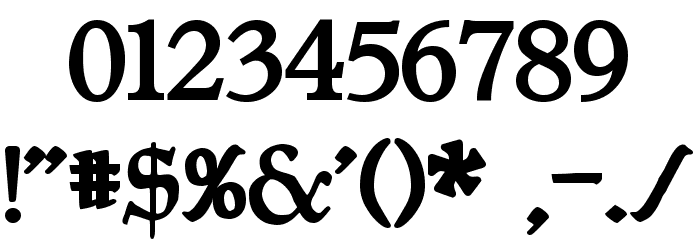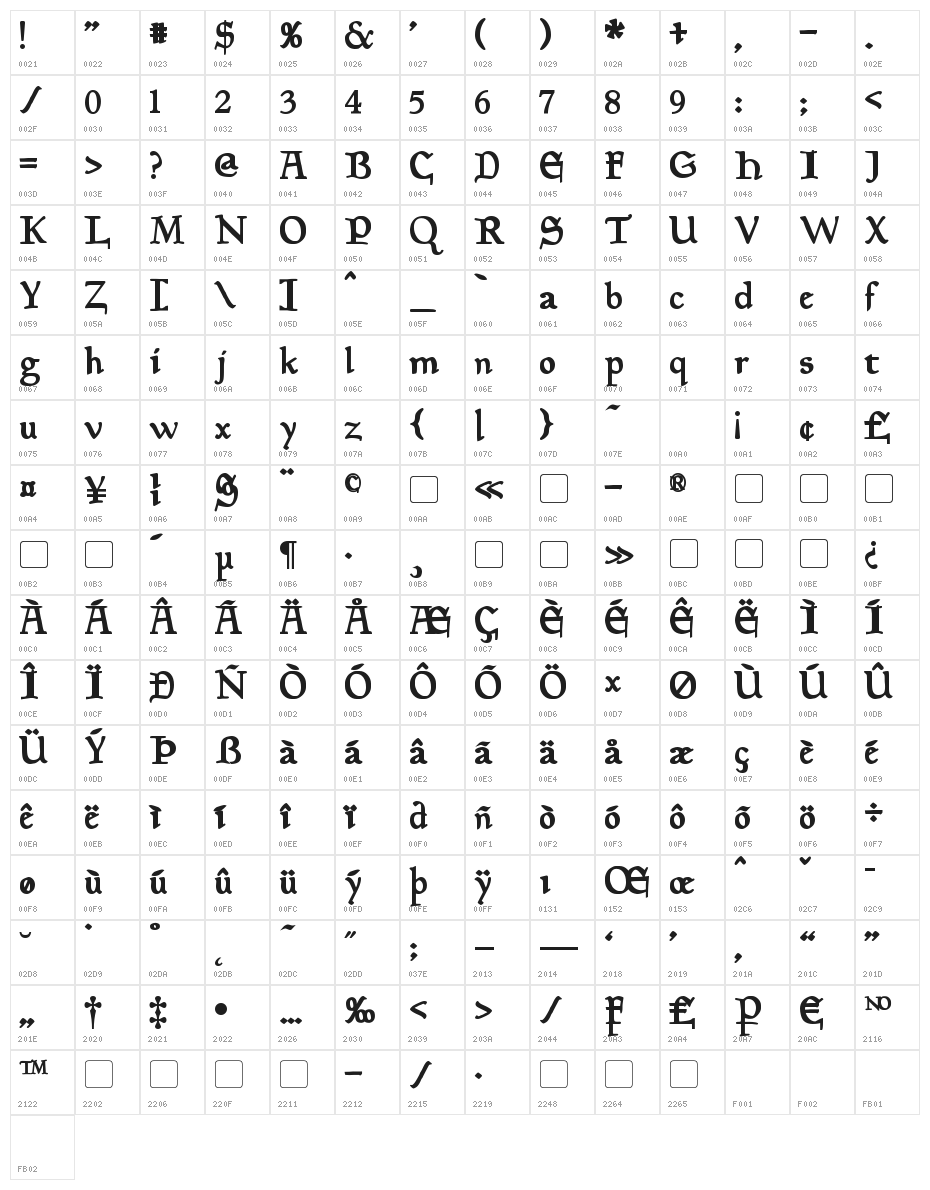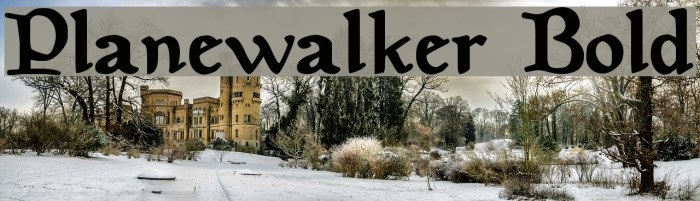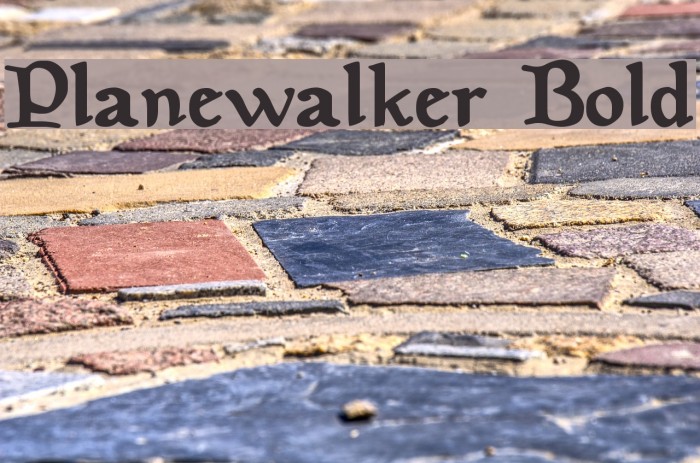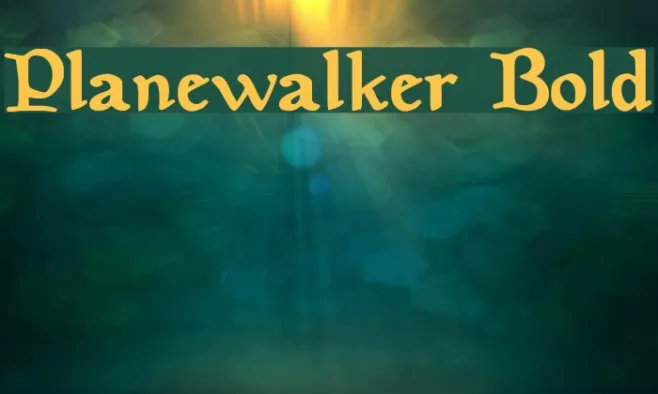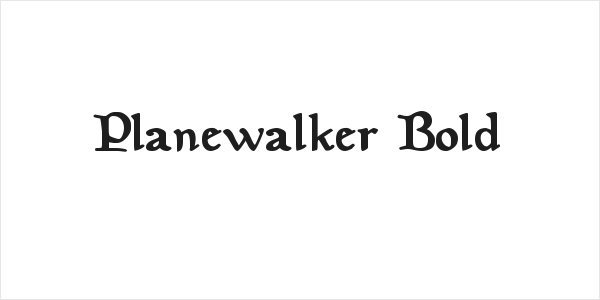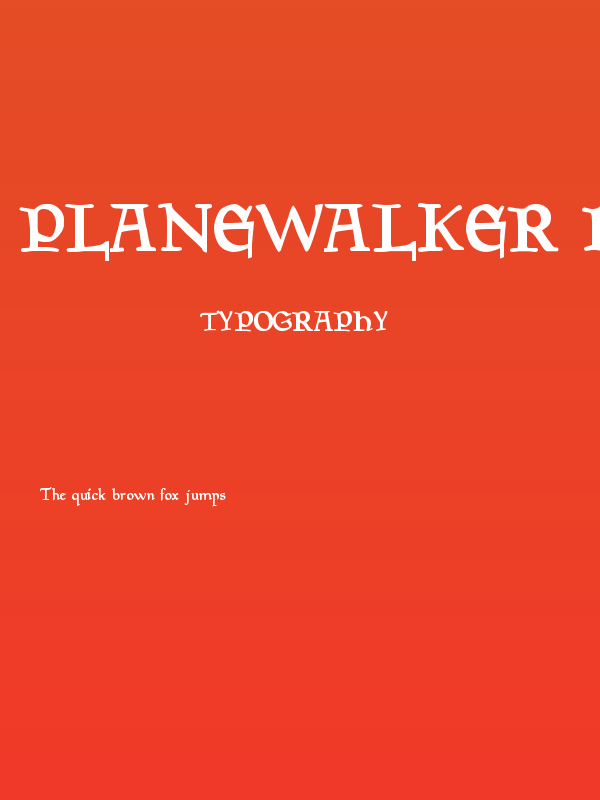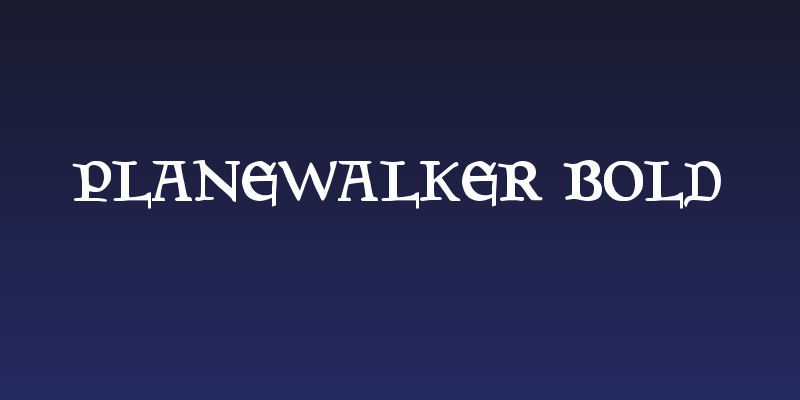
Planewalker Bold Font
Planewalker Bold Description
This font features a bold and dynamic style with a medieval flair, characterized by its unique and slightly whimsical letterforms. The uppercase letters exhibit a strong presence with sharp serifs and distinctive curves, while the lowercase letters maintain a consistent boldness with rounded edges. The numerals are clear and robust, matching the overall boldness of the font. Special characters are creatively designed, adding to the font's decorative appeal. This font's boldness and distinctive style make it suitable for projects that require a touch of fantasy or historical elegance.